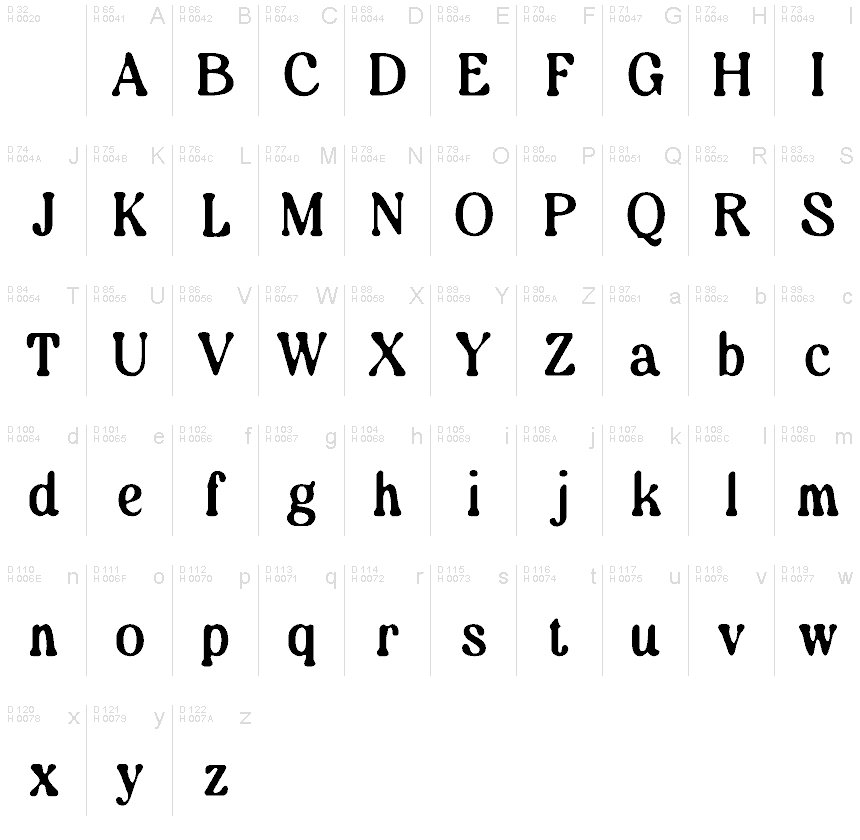
Forena Blur font by Craft Supply Co. is a polished and elegant serif font inspired by early 18th century typefaces. It showcases a classic style but still fits very well with today’s fashion trends. Lowercase characters feature traditional constructions carried on from old letterforms while uppercase letters come in strong to produce an overall balanced presentation.
Let this free serif font do wonders for body text, headings, quotations, letterheads, banners, posters, business cards, book covers and spine texts. Utilize it in projects dealing with newspapers (headings or main content), magazines on topics relating to fashion or lifestyle as well as infographics or web design interfaces.